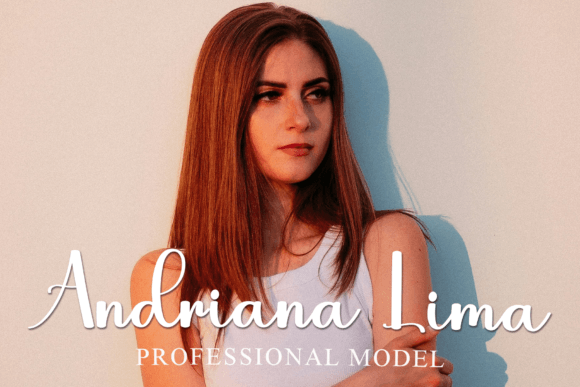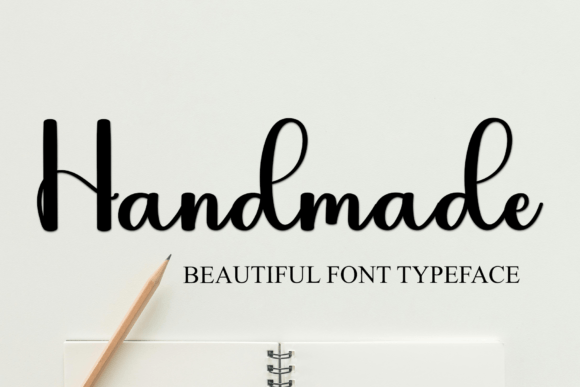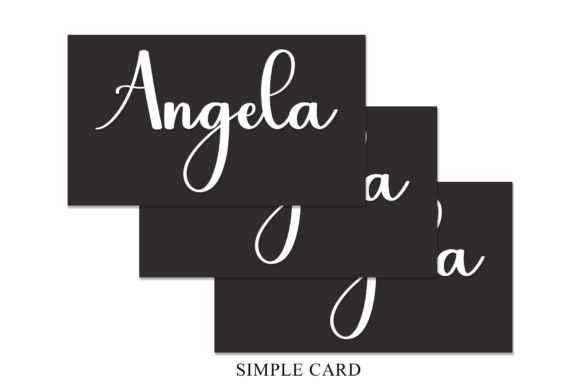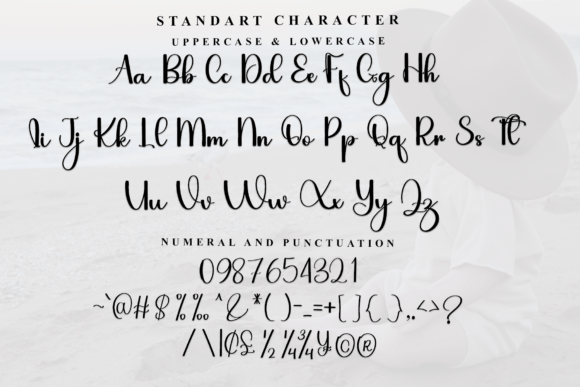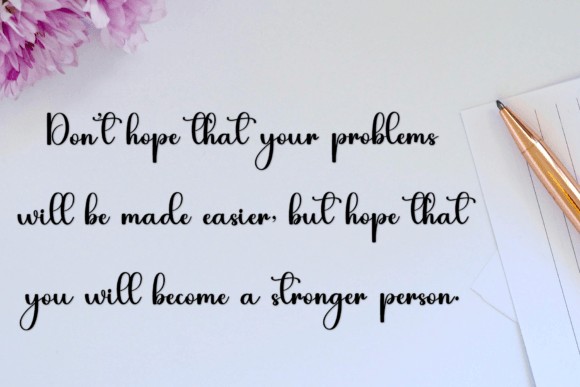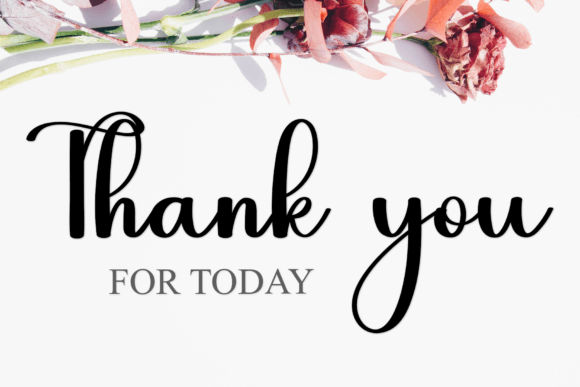
Summer Vibes in Every Letter
Do you remember the feeling of walking along the beach on a warm summer day, the sound of the waves gently crashing against the shore, and the smell of saltwater and sunscreen filling the air? It’s that carefree, joyful atmosphere that Beach Summer Font aims to capture in every letter.
This festive and happy typeface is perfect for designers looking to add a touch of charm to their holiday-themed projects. With its decorative elements and unique flair, Beach Summer Font brings a cheerful and nostalgic atmosphere to your words. Whether you’re creating greeting cards, gift labels, or other seasonal designs, this font is sure to transport your audience to a sunny summer day.
Beach Summer Font Key Features
- Font Style: Casual, Handwritten Script
- Font Size: 5,000+ glyphs, covering a wide range of languages
- Unique Characteristics: Beach Summer Font features a unique, whimsical design with a relaxed, summer vibe, making it perfect for beach-themed designs, water sports, and outdoor activities
Designer Review: Beach Summer Font
Overall, I think the Beach Summer Font is a great choice for summer-themed projects or anything that needs a carefree, beachy vibe. Here are some things that work well:
- ✨ It’s super easy to read, even at small font sizes. The clear lines and simple shapes make it a breeze to scan and understand.
- ✨ The font has a lot of personality and feels really fun and playful. It’s perfect for projects that need to convey a lighthearted and carefree tone.
- ✨ The font is highly customizable, with a wide range of weights and styles to choose from. This makes it easy to adapt to different design needs.
- ⚠️ The font may not be suitable for projects that require a more formal or professional tone. It’s a bit too casual for serious or corporate designs.
- ⚠️ Some of the weights and styles can look a bit rough or unfinished, especially at larger font sizes. This may detract from the overall aesthetic of your design.
Overall, I think the Beach Summer Font is a solid choice for the right projects. It’s perfect for summer-themed designs, kids’ projects, or anything that needs a fun and carefree vibe. Just be aware of its limitations and use it accordingly.
Tips for Getting the Most Out of Beach Summer Font
For best results, use Beach Summer Font for beach-themed or summer-inspired projects. You can also pair it with other fonts for a unique look.
Beach Summer Font is perfect for:
– Summer vacation invitations
– Beach party flyers
– Water-themed social media graphics
– Summer-themed blog posts
Alternatives to Beach Summer Font
Bellota
Bellota is a beautiful, elegant script font perfect for creating a romantic and whimsical atmosphere. It’s ideal for wedding invitations, birthday cards, and other special occasions. Bellota has a similar cursive feel to Beach Summer Font, but with a more refined and sophisticated look.
Great Vibes is a fun, modern script font that’s perfect for creating a carefree and lively atmosphere. It’s ideal for summer-themed projects, travel brochures, and social media graphics. Great Vibes has a more playful and energetic feel than Beach Summer Font, making it perfect for projects that require a lot of personality.
Carolyna Pro is a elegant and refined script font that’s perfect for creating a sophisticated and luxurious atmosphere. It’s ideal for high-end branding, advertising, and editorial projects. Carolyna Pro has a more polished and refined look than Beach Summer Font, making it perfect for projects that require a lot of elegance and sophistication.
Carolyna Pro’s competitor: Alex Brush
Alex Brush is a elegant and refined script font that’s perfect for creating a sophisticated and luxurious atmosphere. It’s ideal for high-end branding, advertising, and editorial projects. Alex Brush has a more refined and elegant look than Beach Summer Font, and is a good competitor to Carolyna Pro.